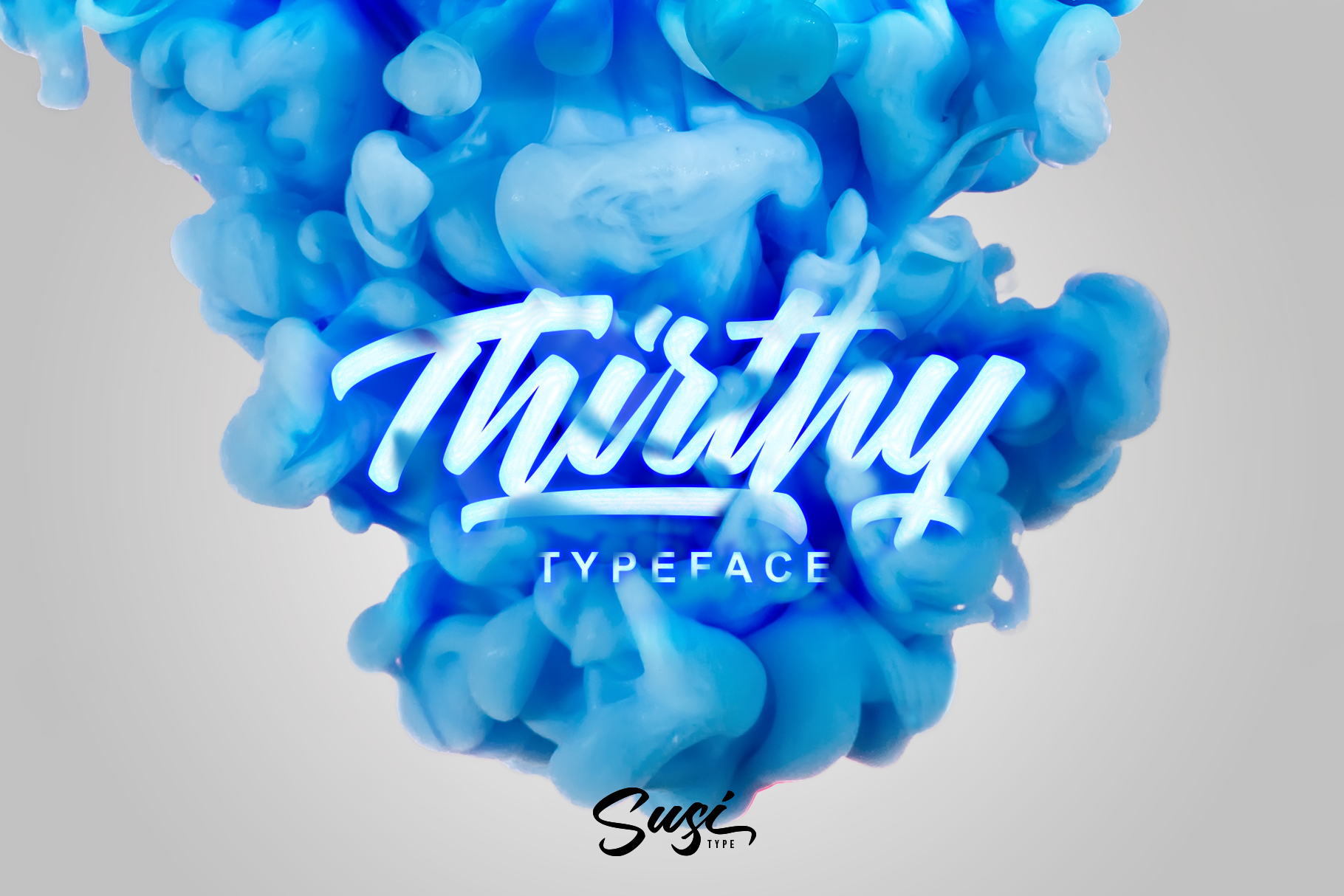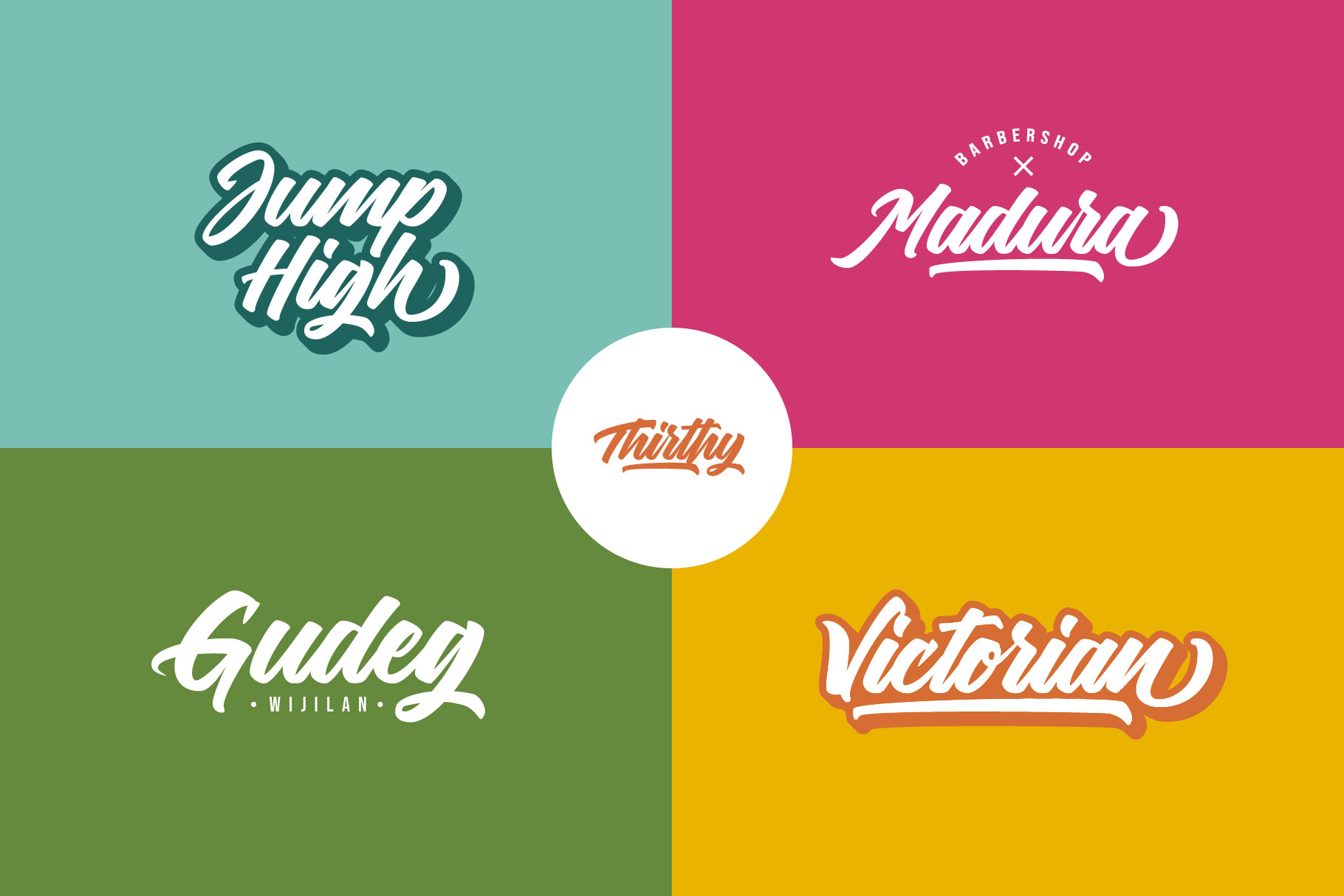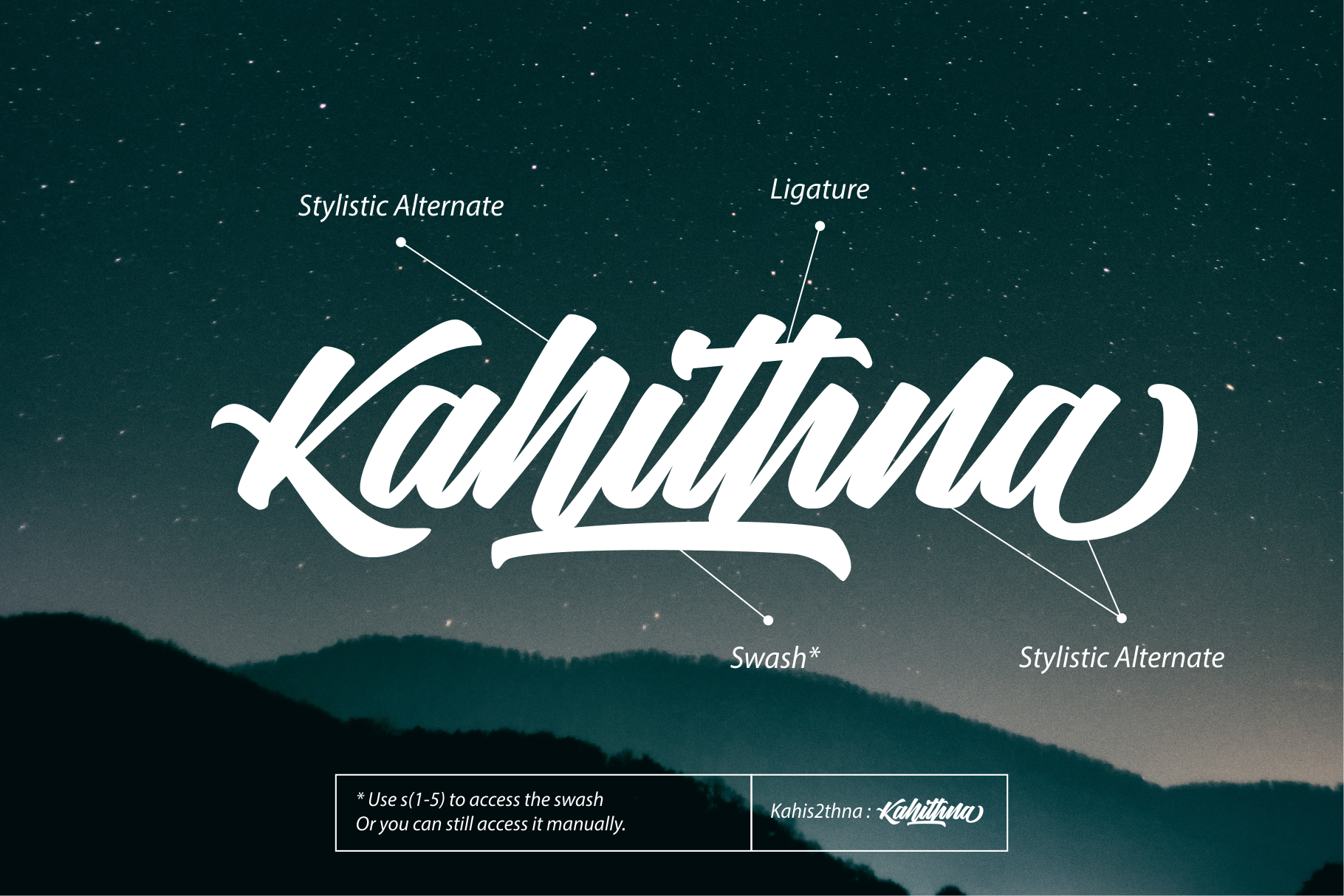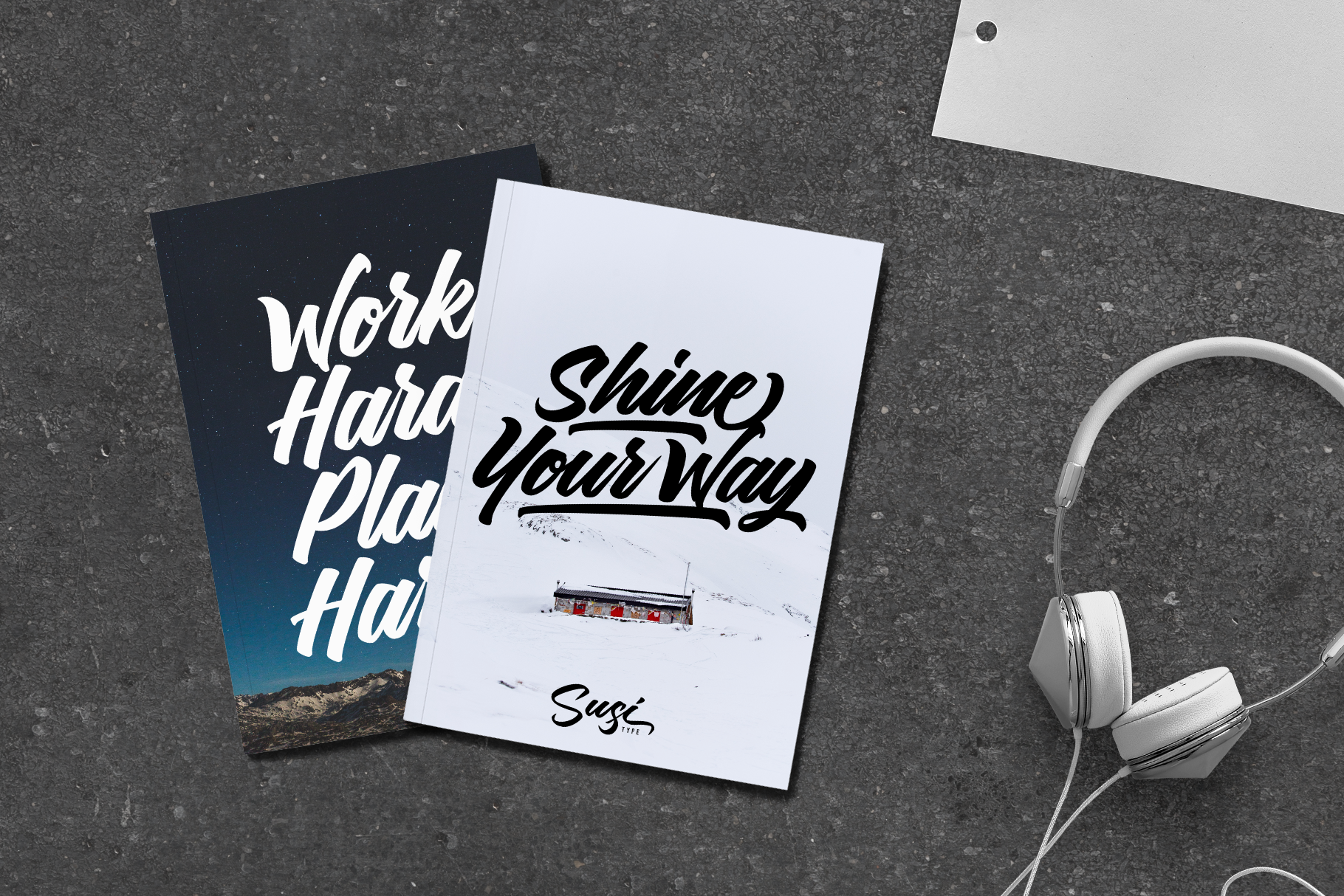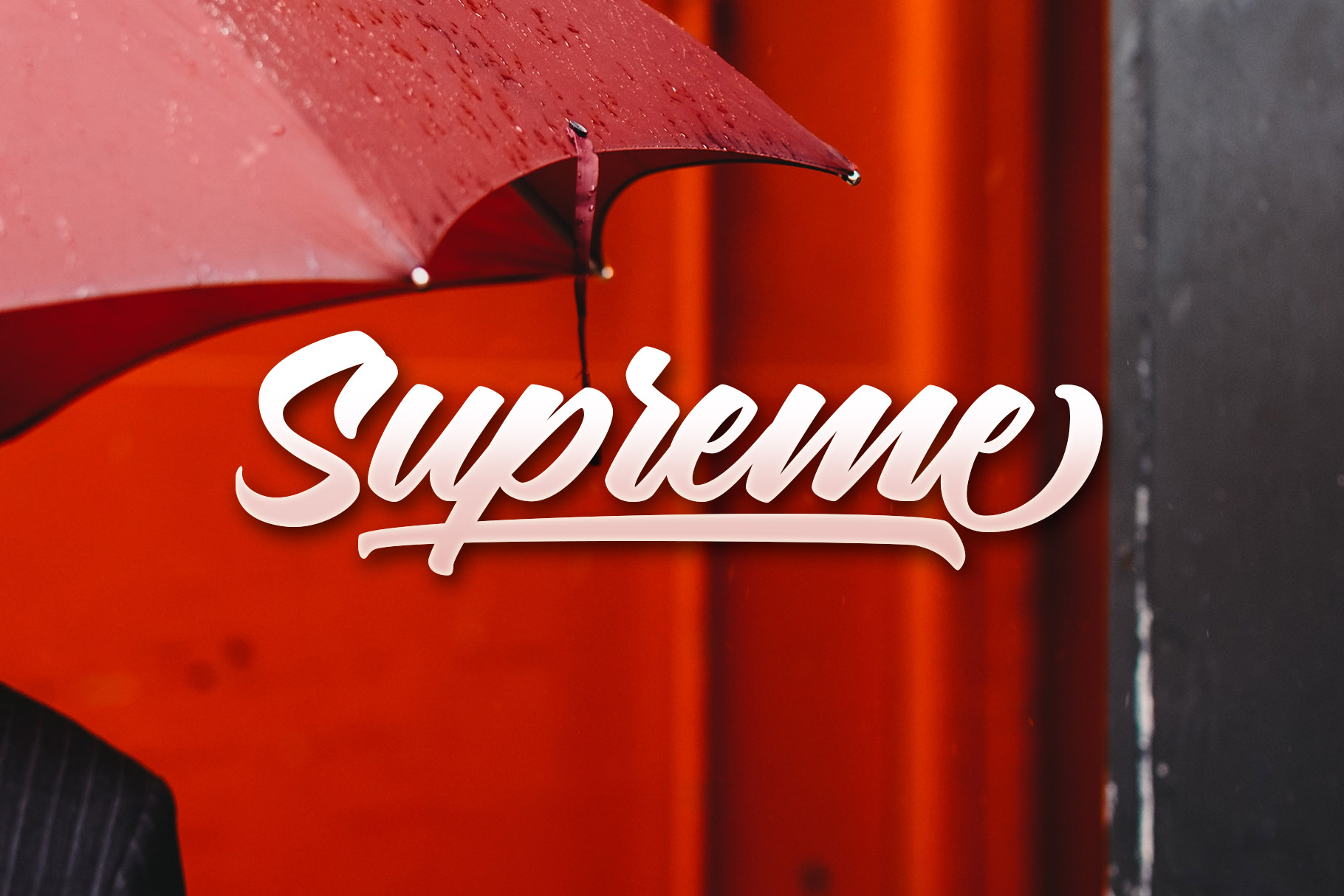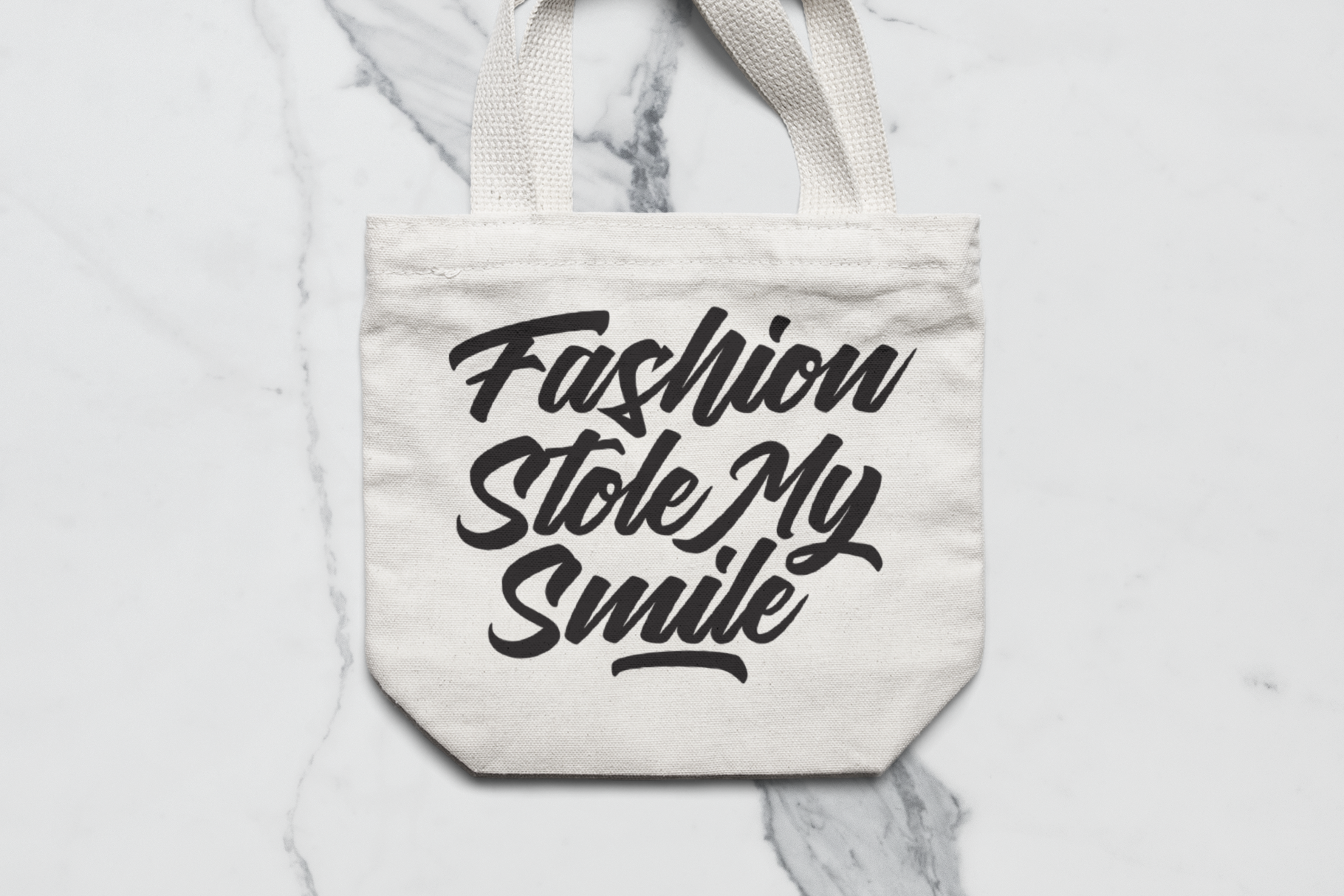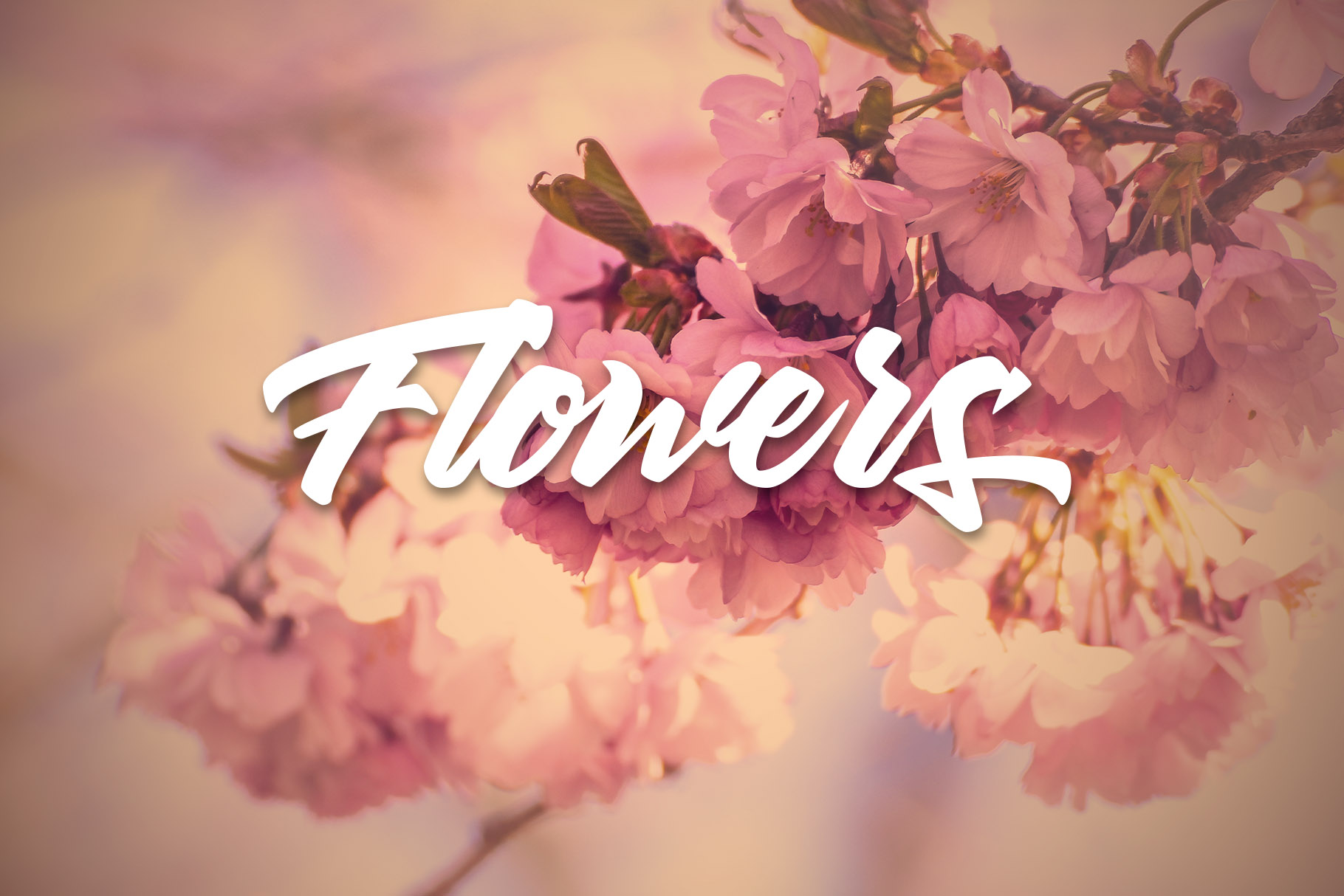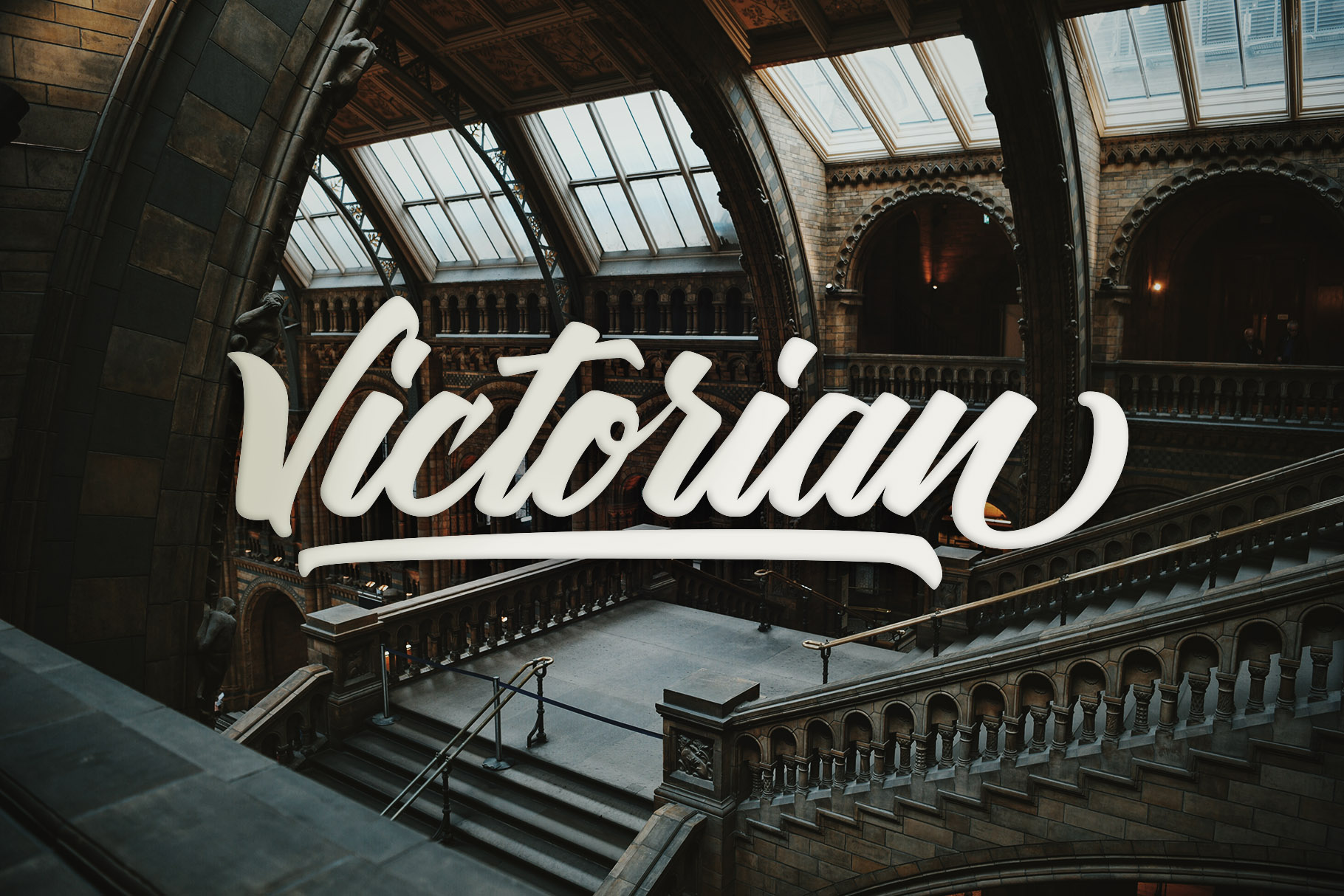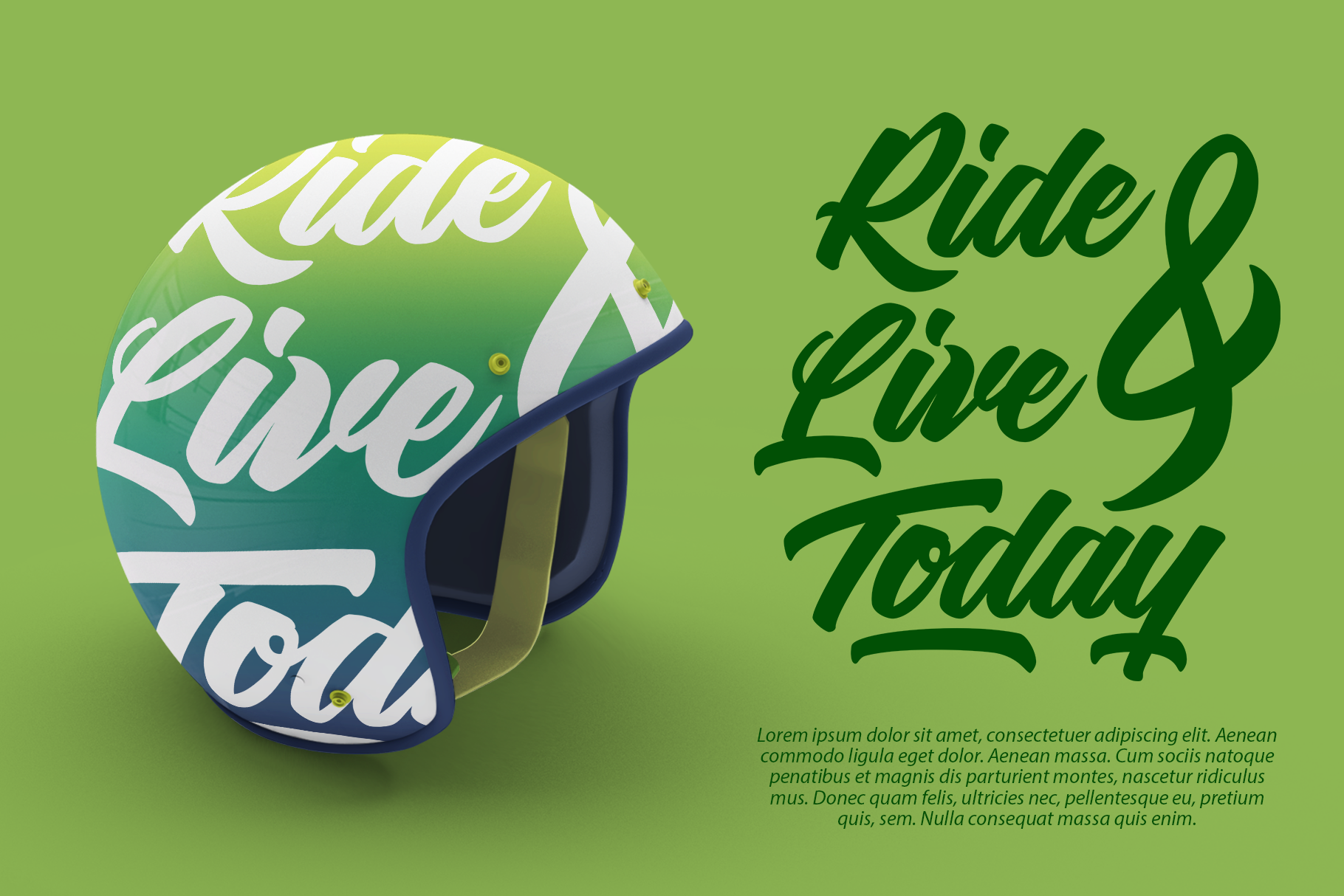
Thirthy Font
About Thirthy Font
Introducing our font debut, Thirthy. Thirthy is a bold handwritten typeface that is suitable for a wide range of creative projects, with a subtle nod to vintage style.